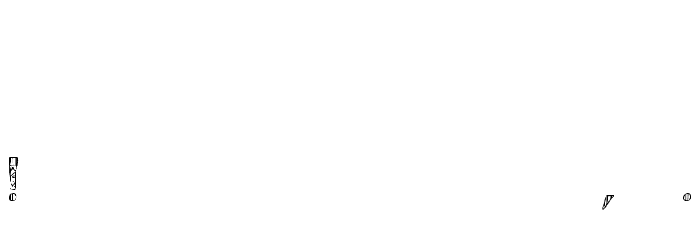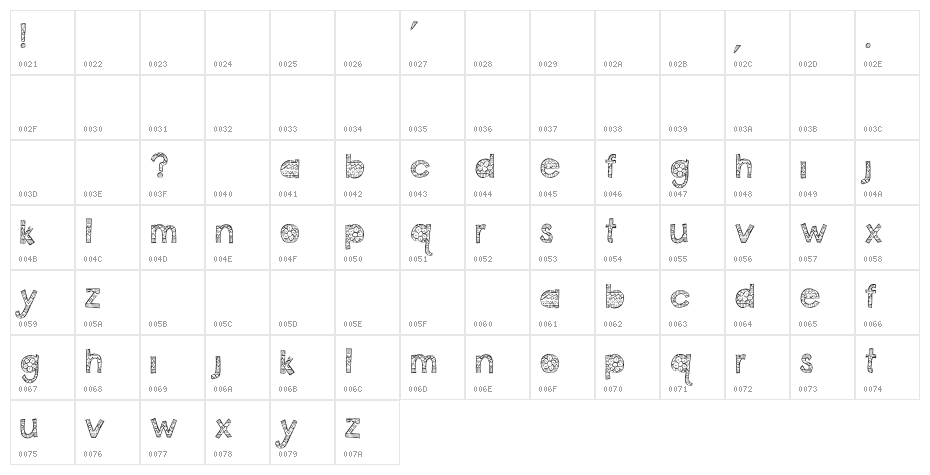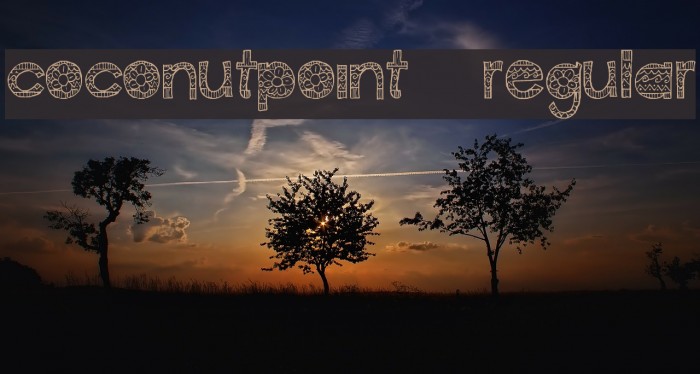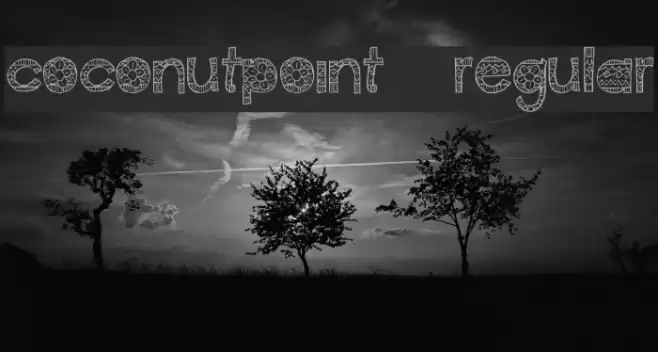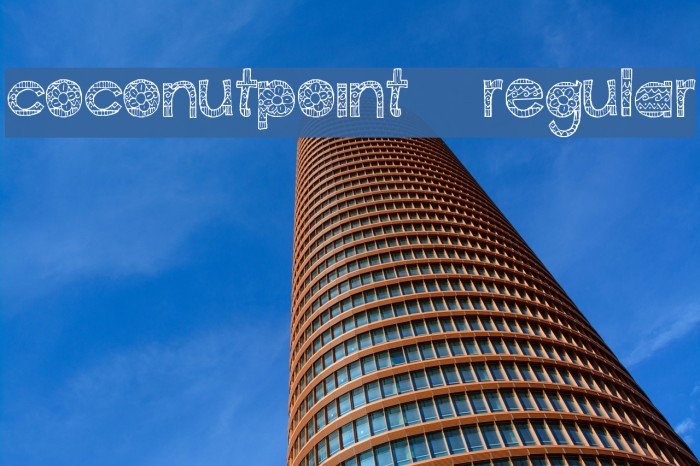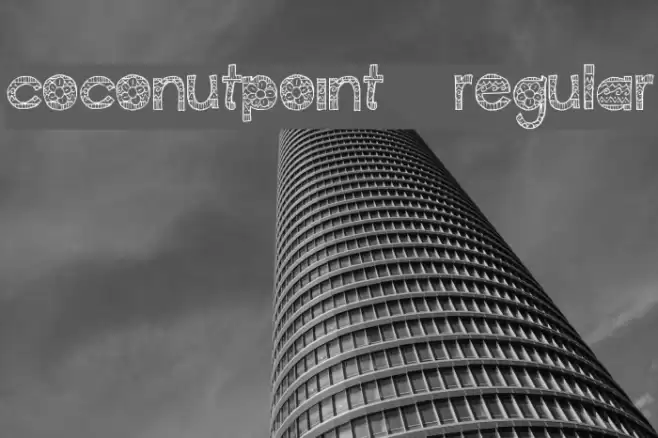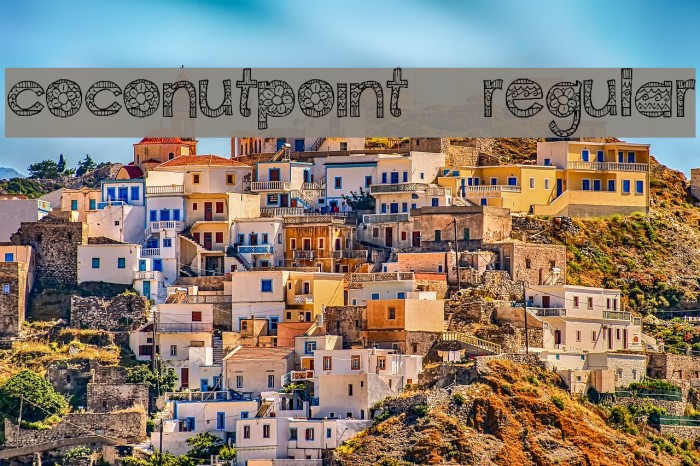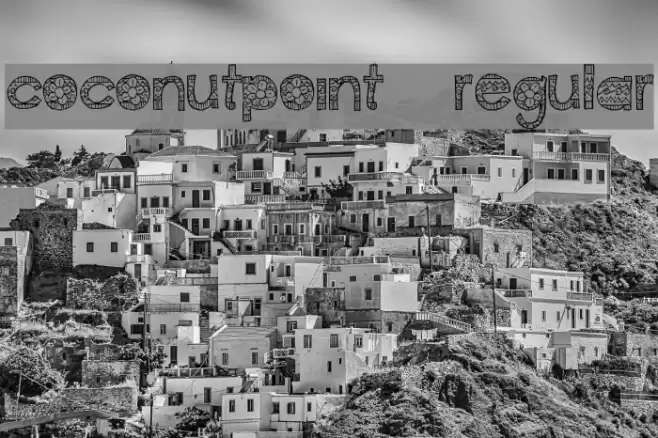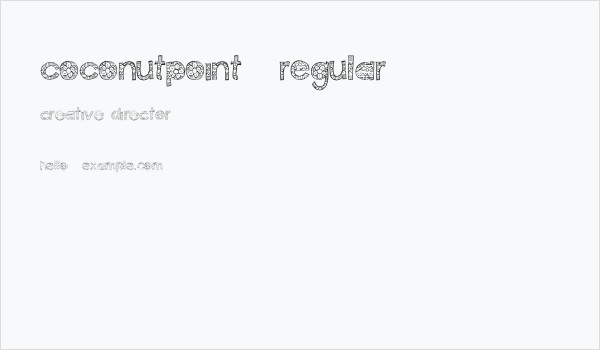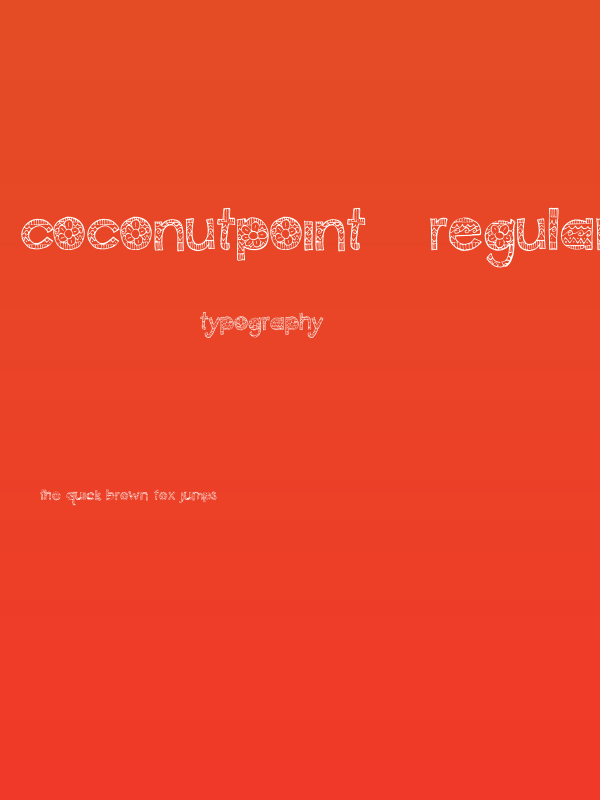
CoconutPoint-Regular Font
CoconutPoint-Regular Description
This font features a playful and decorative style, characterized by intricate patterns and textures within each letter. The letters are bold and have a hand-drawn appearance, with each character filled with unique designs such as stripes, dots, and floral motifs. The overall look is whimsical and artistic, making it stand out as a creative and eye-catching typeface. The uppercase and lowercase letters maintain a consistent style, ensuring a cohesive look across different text compositions. The font's decorative nature makes it ideal for projects that require a touch of creativity and individuality.
| Proposed Projects | Ideal for greeting cards, children's books, creative posters, and artistic branding. |